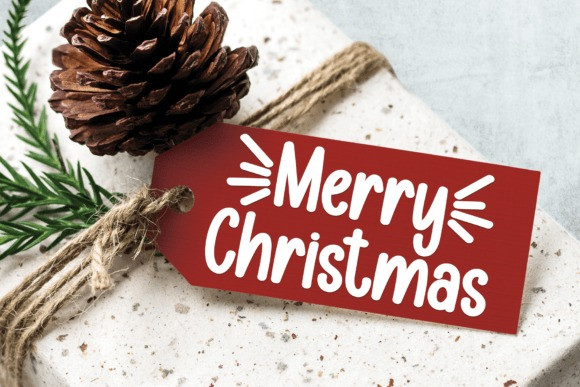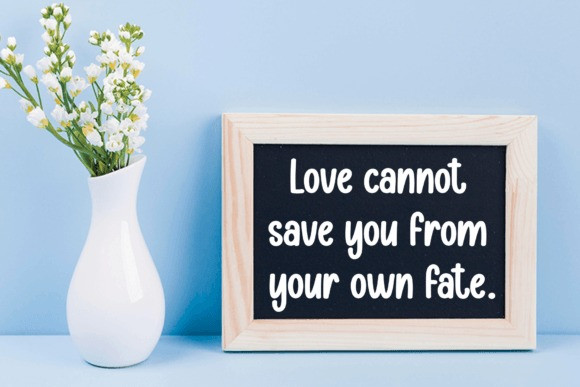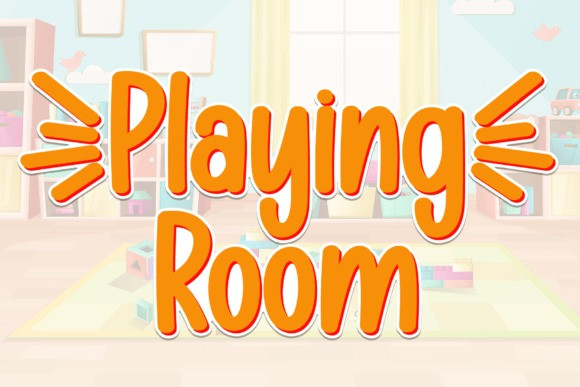
Playing Room Font
Playing Room Font is a lovely and timeless handwritten font. It is the best choice for creating eye catching logos, branding and quotes. Every letter has a unique and beautiful touch, which will make your design come alive.